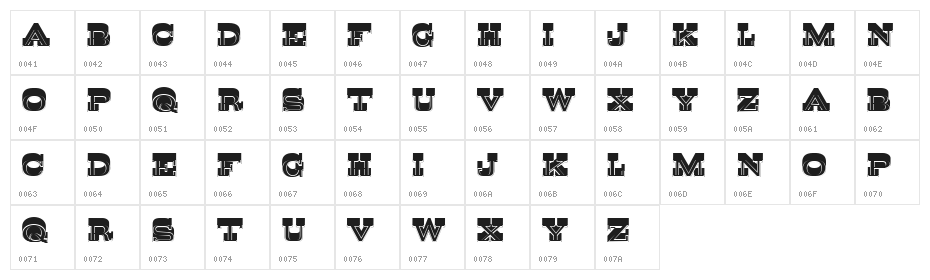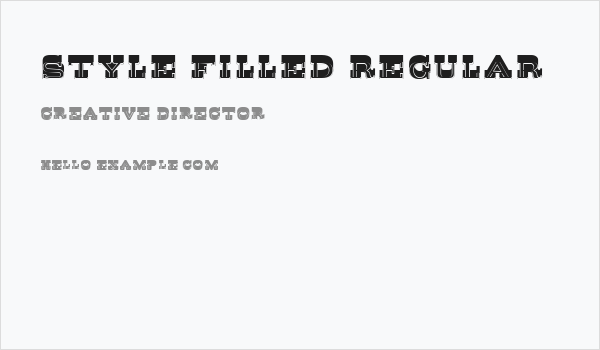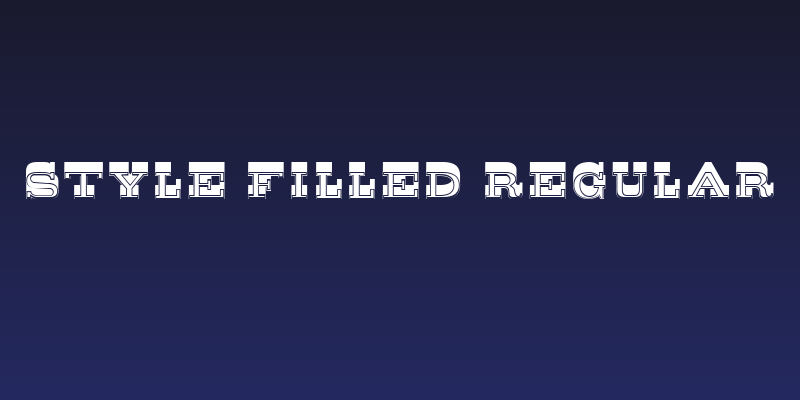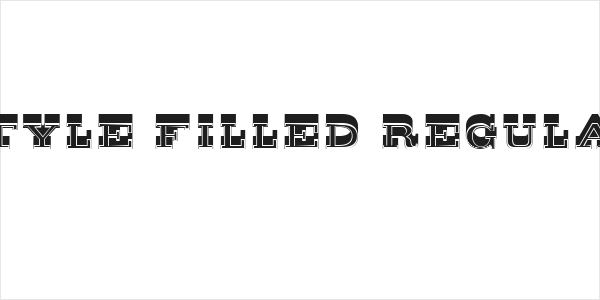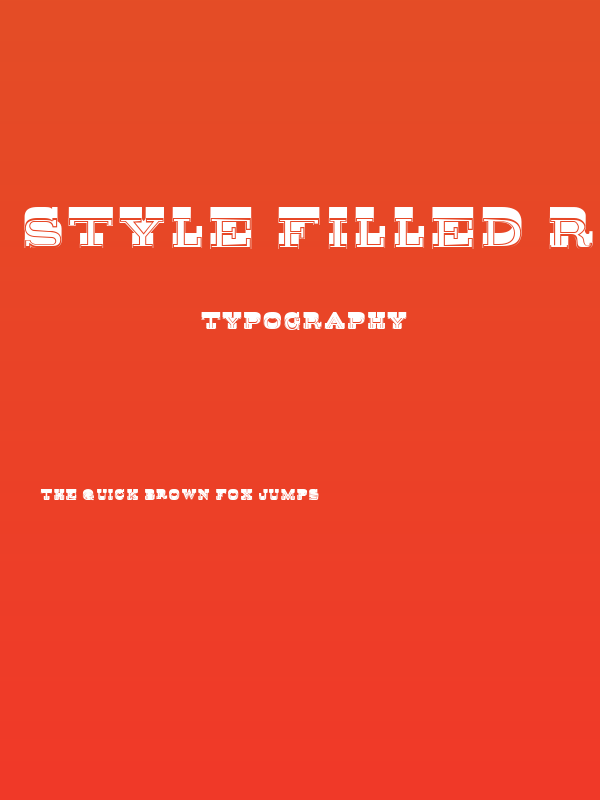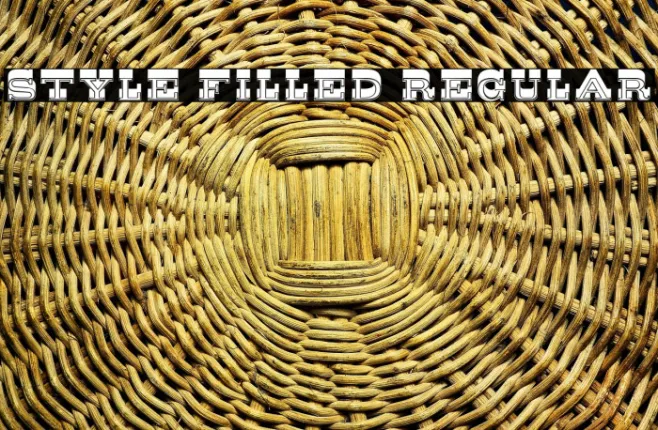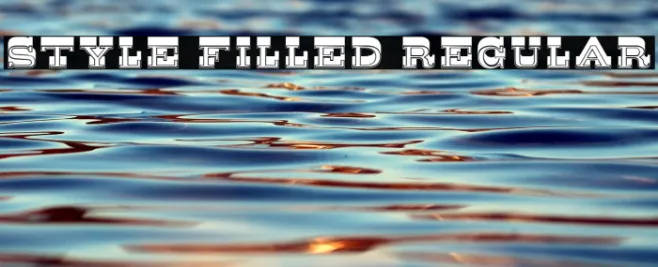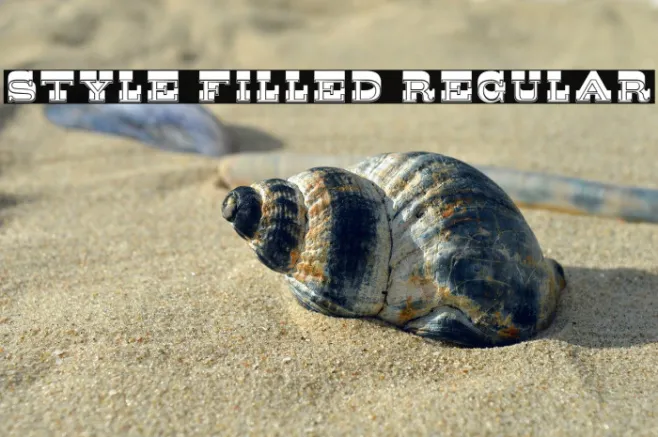
Style Filled Regular Font
Style Filled Regular Description
This font features a bold and decorative style with a filled design that gives it a striking appearance. The characters are outlined with a thick black stroke, creating a layered effect that adds depth and dimension. The uppercase letters are prominent and commanding, making them ideal for attention-grabbing headlines or titles. The overall design is modern yet retains a classic touch, making it versatile for various design projects. The font's unique style is perfect for branding, posters, and any creative work that requires a bold statement.
| Proposed Projects | Ideal for branding, posters, headlines, and creative projects requiring a bold statement. |